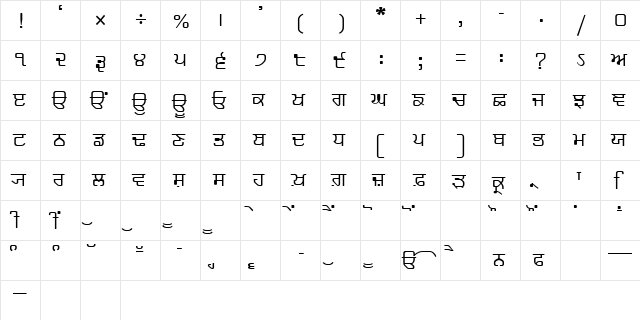
Shree-Pun-0955 Normal
Design Context for Shree-Pun-0955 Typeface
Shree-Pun-0955 offers clean, dependable letterforms without strong stylistic allegiance, making it a practical choice for designers who need flexibility.